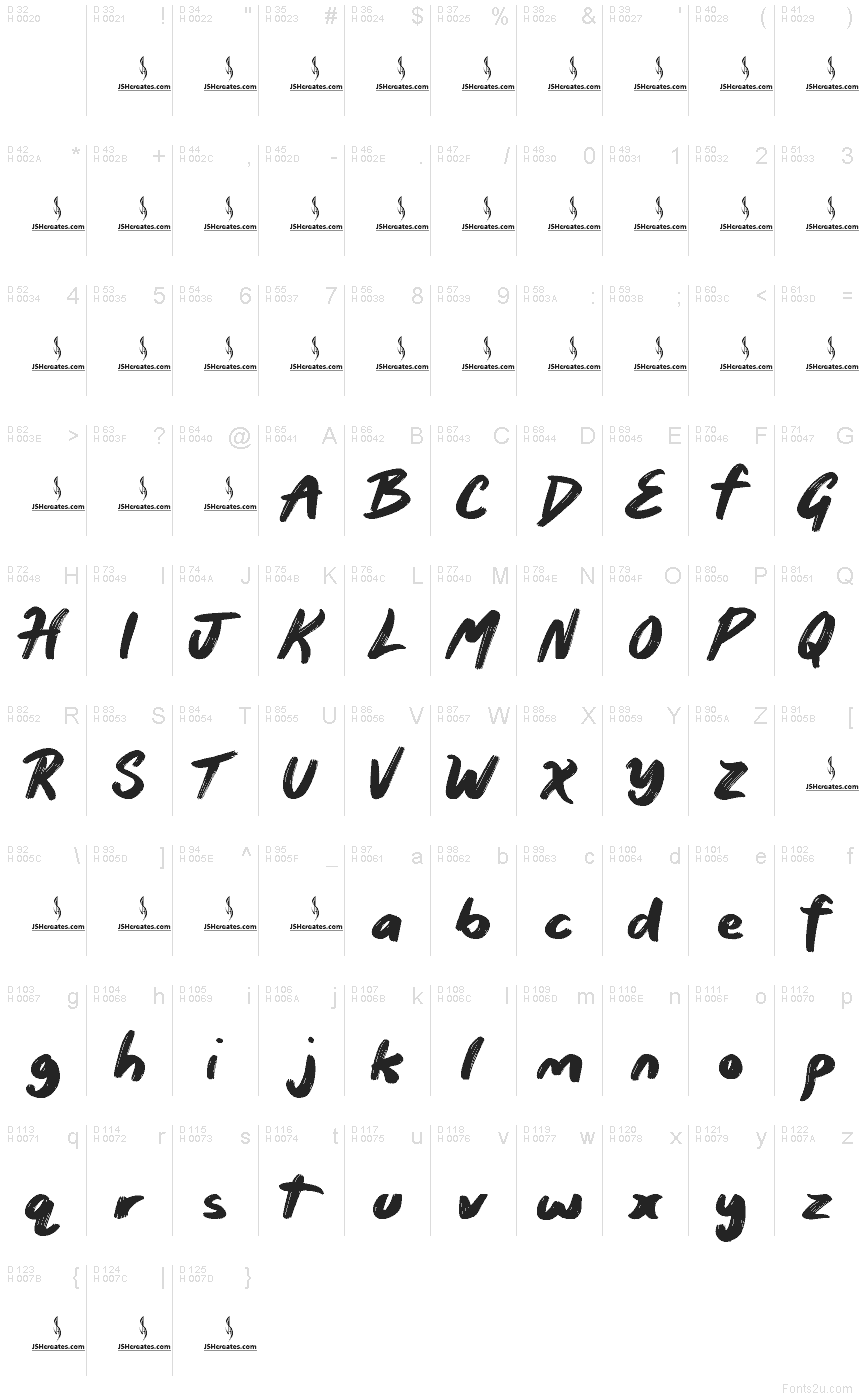
Twitchy Glitch
Twitchy Glitch font by JSH creates is an expressive brush font with a bold weight. The playful typeface has a lively texture and a spontaneous feel which form the perfect recipe for artistic expression. The rectangles shape the main body of the letters before unexpected contour extensions appear on their ends giving them artistic energy.
This free brush display font suits many purposes including headings, subheadings, posters, social media posts, invitations, greeting cards, movie covers, book titles, apparel design prints, album cover art as well as other typography projects.